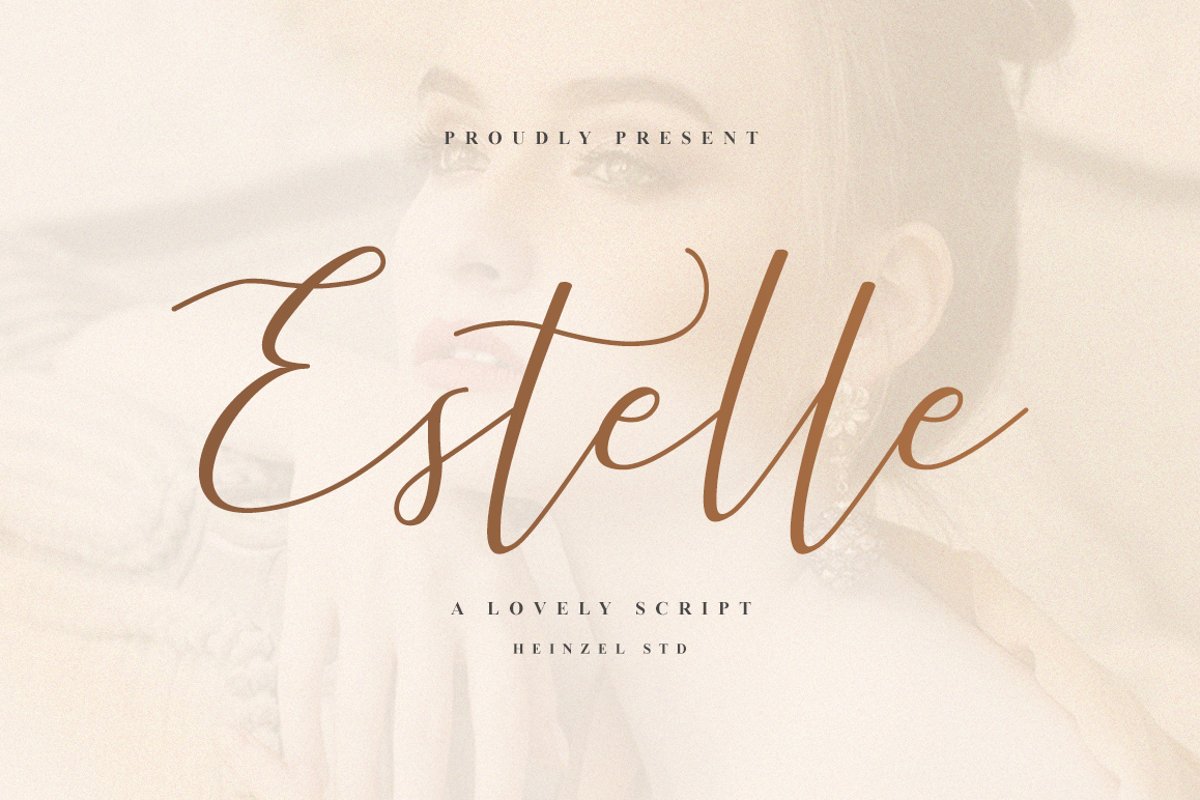
Estelle Script
Estelle Bold
Estelle
Estelle Lovely Script style - a new modern & fresh script with a handwritten and script style make this font looks elegant, natural, stylish and perfect for any awesome projects that need handwriting taste.
Estelle would perfect for photography, watermark, social media posts, advertisements, logos & branding, invitation, product designs, label, stationery, wedding designs, product packaging, special events or anything that need handwriting taste.
- Ligatures & Alternate